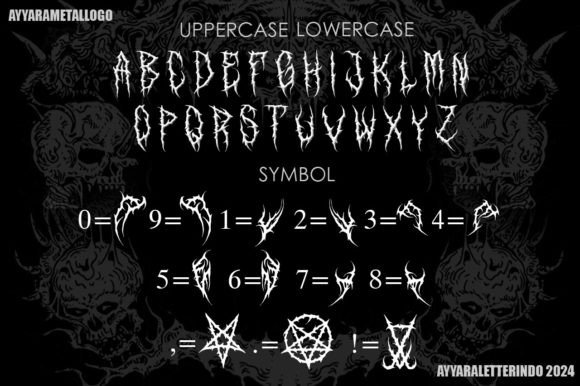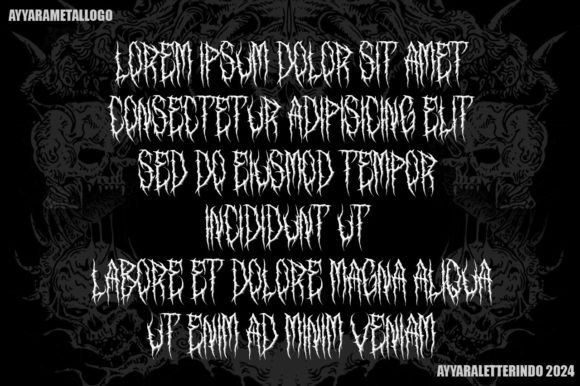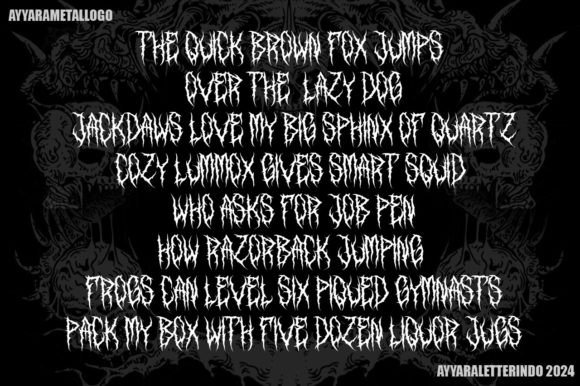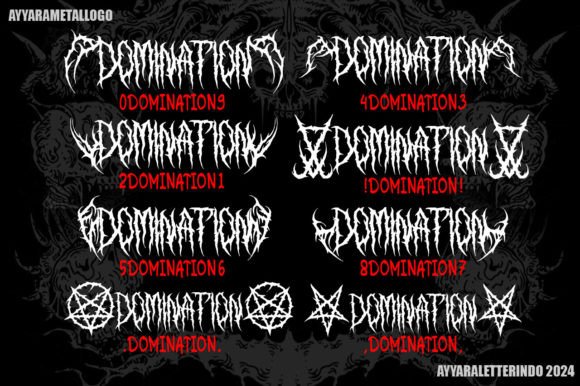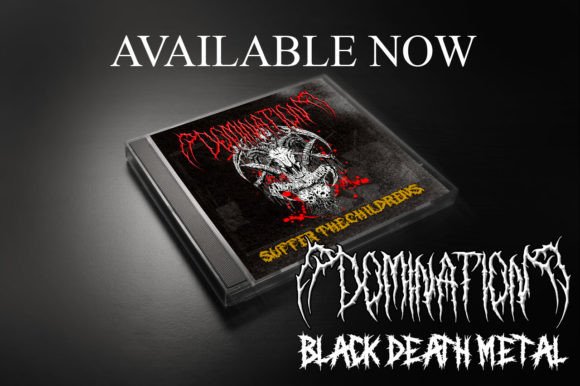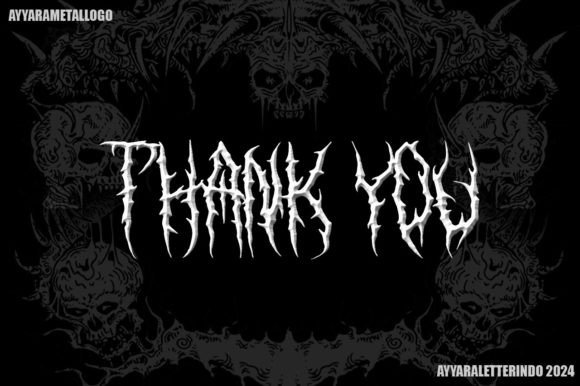
Unleash the Power of Domination Font: The Ultimate Choice for Metal Band Logos and Branding
Are you a metal band looking for a font that embodies the spirit of black death metal? Or perhaps a designer seeking a unique and powerful font to create striking logos and branding for your clients? Look no further than the Domination Font, a bold and intimidating black letter font designed specifically for metal band names and logos.
The Power of Domination Font
Domination Font is a black death metal font that exudes power, aggression, and intensity. Its bold, rugged design is perfect for creating striking logos and branding that will leave a lasting impression on fans and customers alike. With its unique and distinctive style, Domination Font is sure to set your metal band or brand apart from the rest.
Key Features of Domination Font
- Unique Black Letter Design: Domination Font features a bold, black letter design that is perfect for creating striking logos and branding.
- Metal Band Ready: This font is specifically designed for metal bands and is perfect for creating logos, branding, and merchandise.
- Easily Customizable: Domination Font is easy to use and customize, making it perfect for designers and crafters of all skill levels.
Why Choose Domination Font?
So why choose Domination Font over other fonts on the market? Here are just a few reasons:
- Authentic Metal Look: Domination Font is designed specifically for metal bands and has an authentic look and feel that is sure to resonate with fans.
- High-Quality Design: This font is designed with high-quality and precision, ensuring that it looks great in any size or application.
Here are a few tips and inspiration ideas to get you started with Domination Font:
- Combine with Ornaments: Combine Domination Font with black metal or death metal ornaments to create a unique and striking design.
- Experiment with Colors: Experiment with different colors and textures to create a look that is uniquely yours.
- Keep it Simple: Keep your design simple and focused, allowing the power of Domination Font to shine through.
Domination Font is the ultimate choice for metal band logos and branding. With its unique and powerful design, this font is sure to make a lasting impression on fans and customers alike. Whether you’re a metal band or a designer, Domination Font is the perfect choice for creating striking logos and branding. So why wait? Get Domination Font today and unleash the power of black death metal on your design.